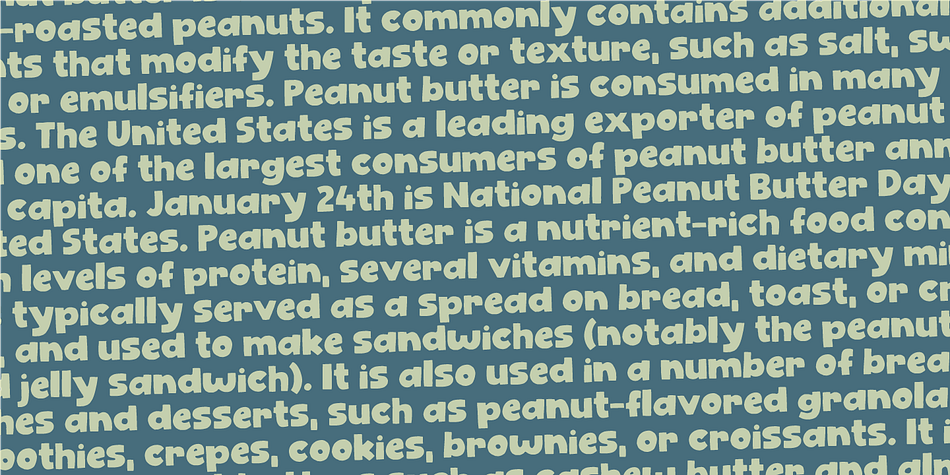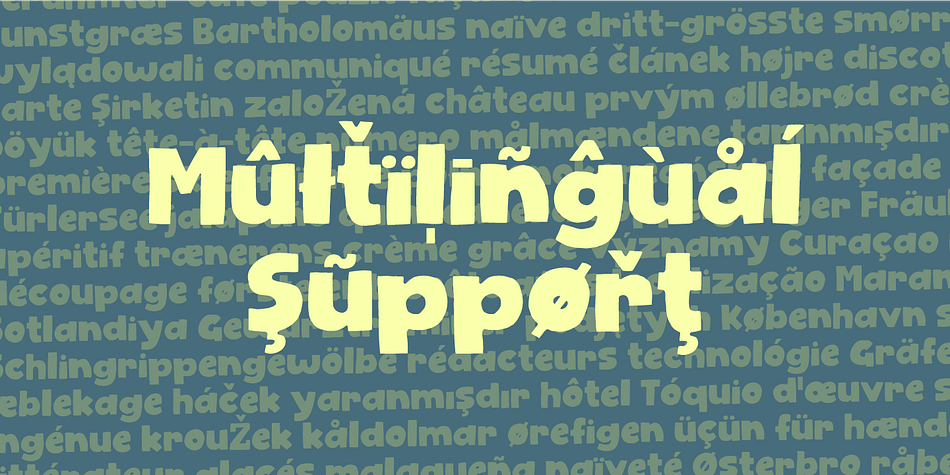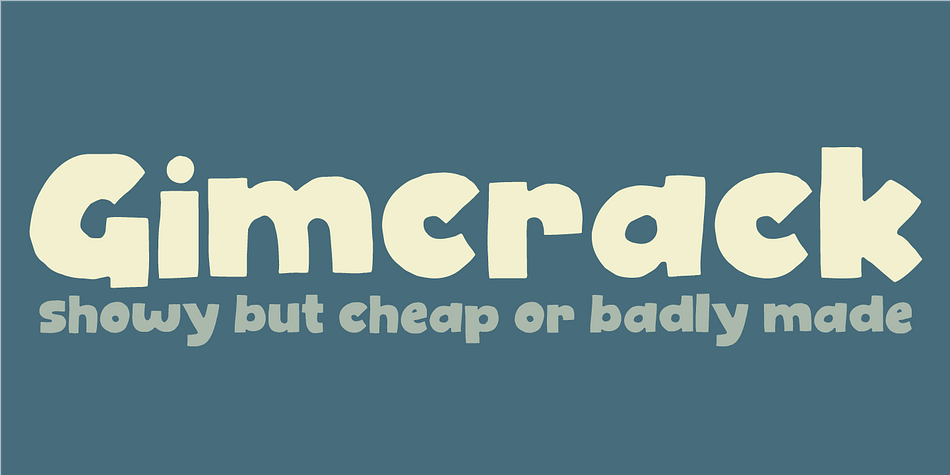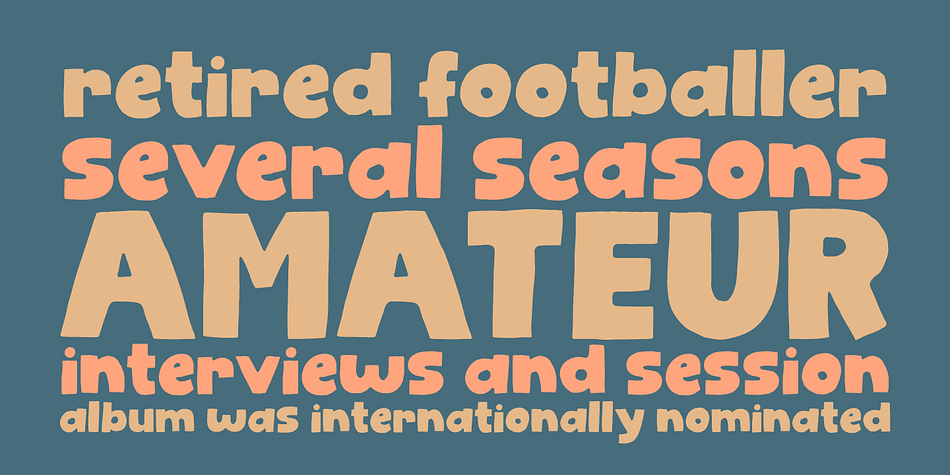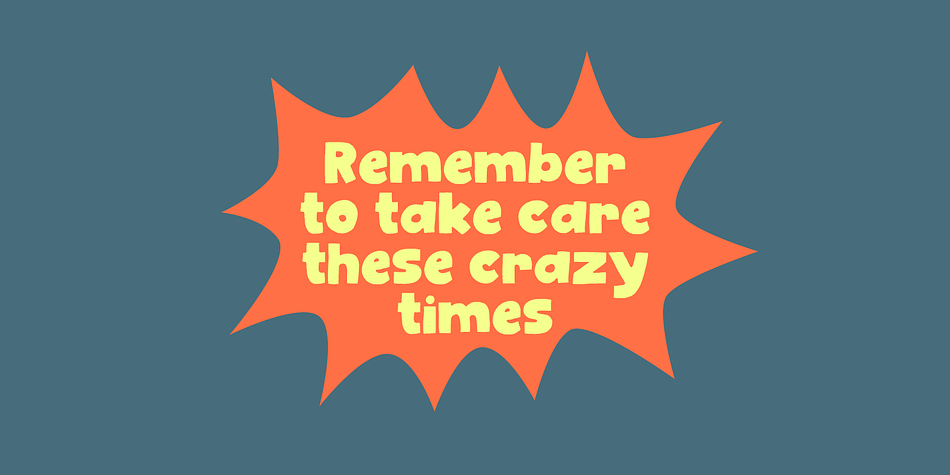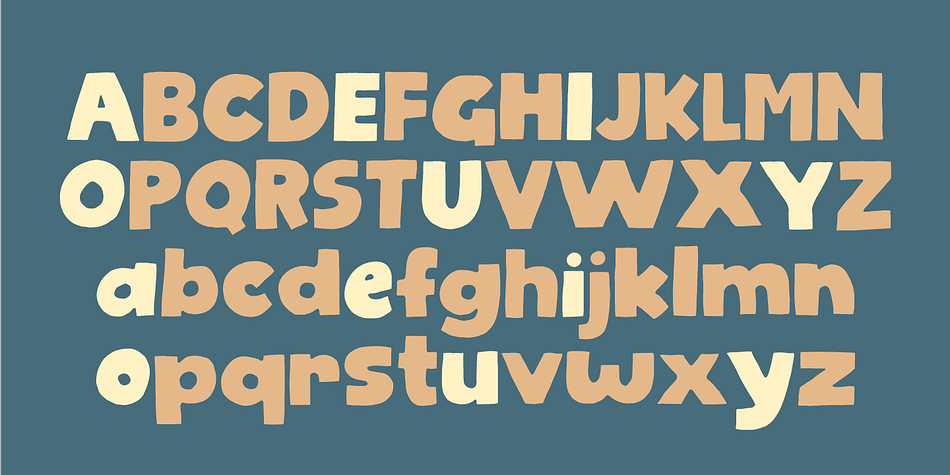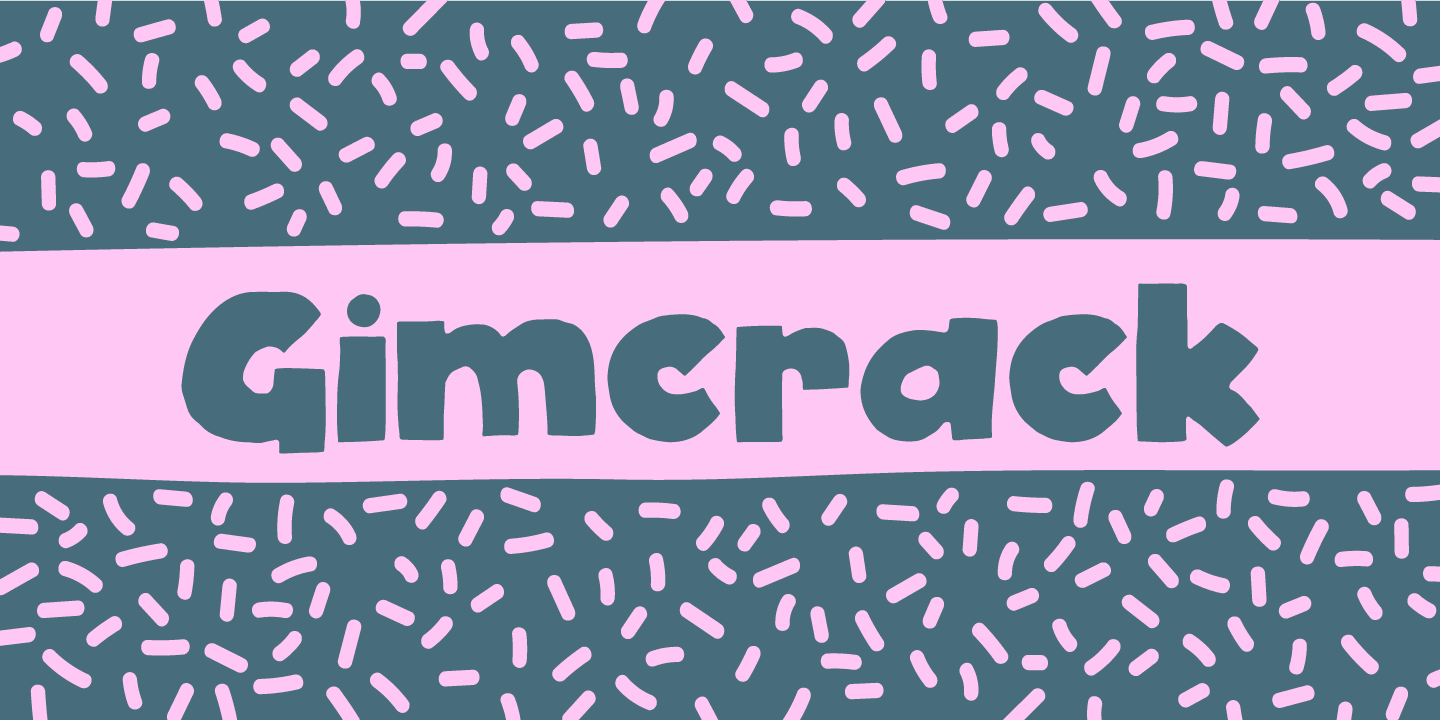
Gimcrack
Designed by Jakob Fischer, Gimcrack is a hand display font family. This typeface has two styles and was published by Bogstav.
Gimcrack is “showy but cheap or badly made” - that’s what a search on the internet says. Well, that description fits this font quite well - although it was deliberately made that way!